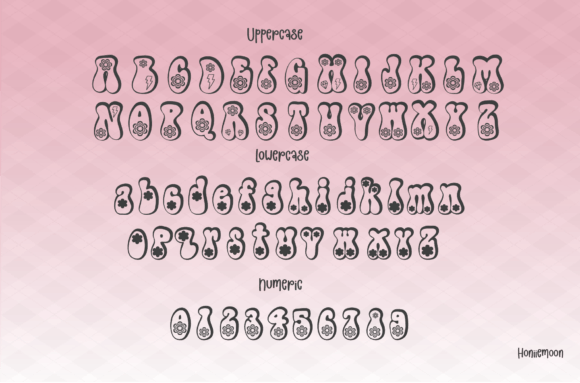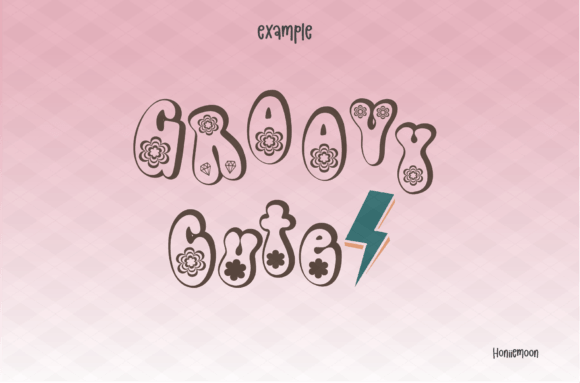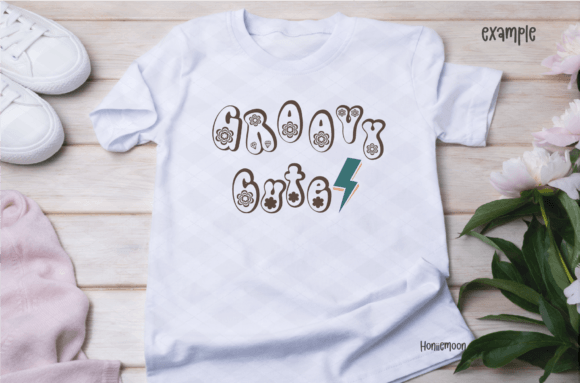
Introduction to Shadow Groovy Font
Shadow Groovy is a cool and fun display font.
It looks both cute and jolly and it will enhance each of your designs The only limit is your imagination.
Key Features of Shadow Groovy Font